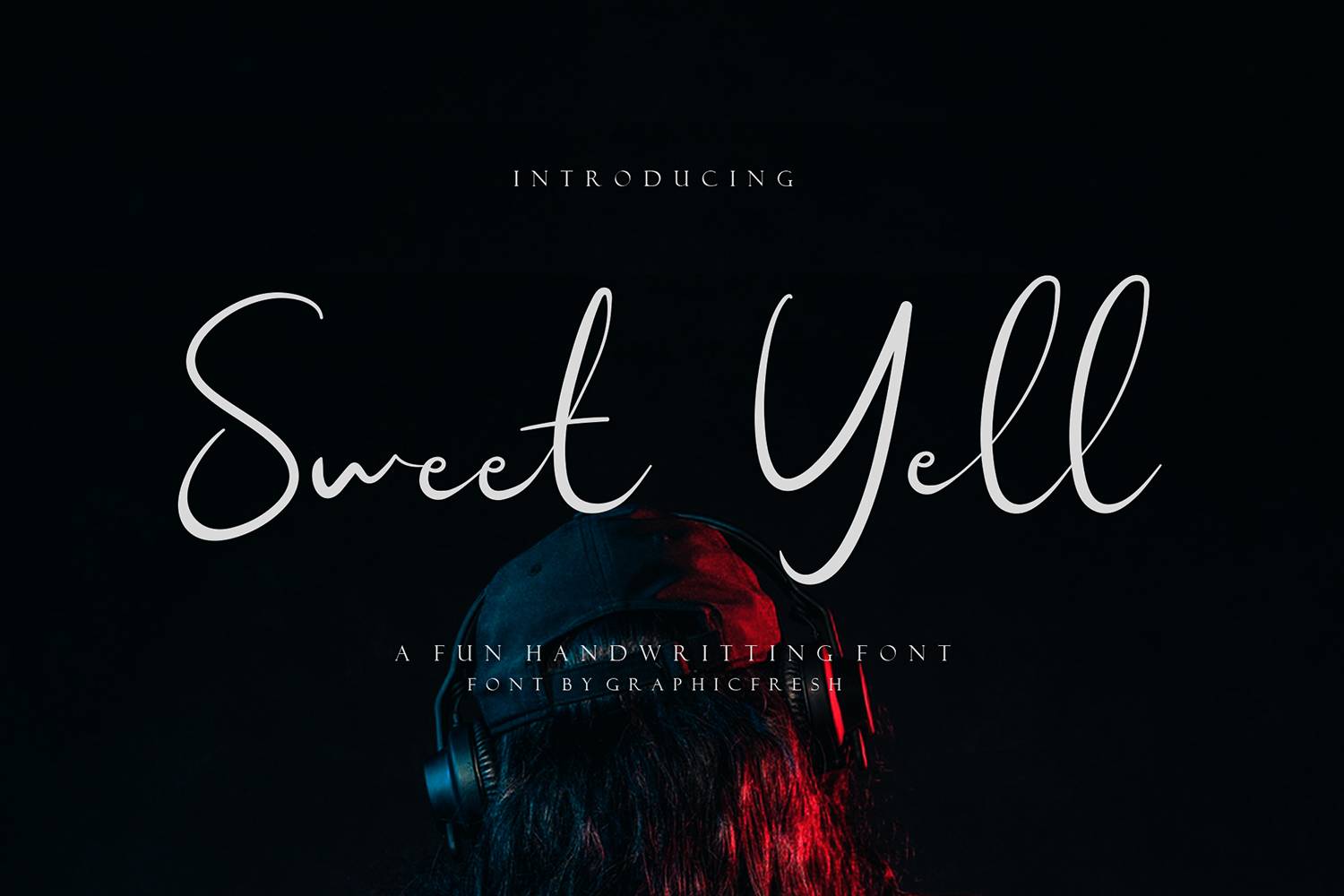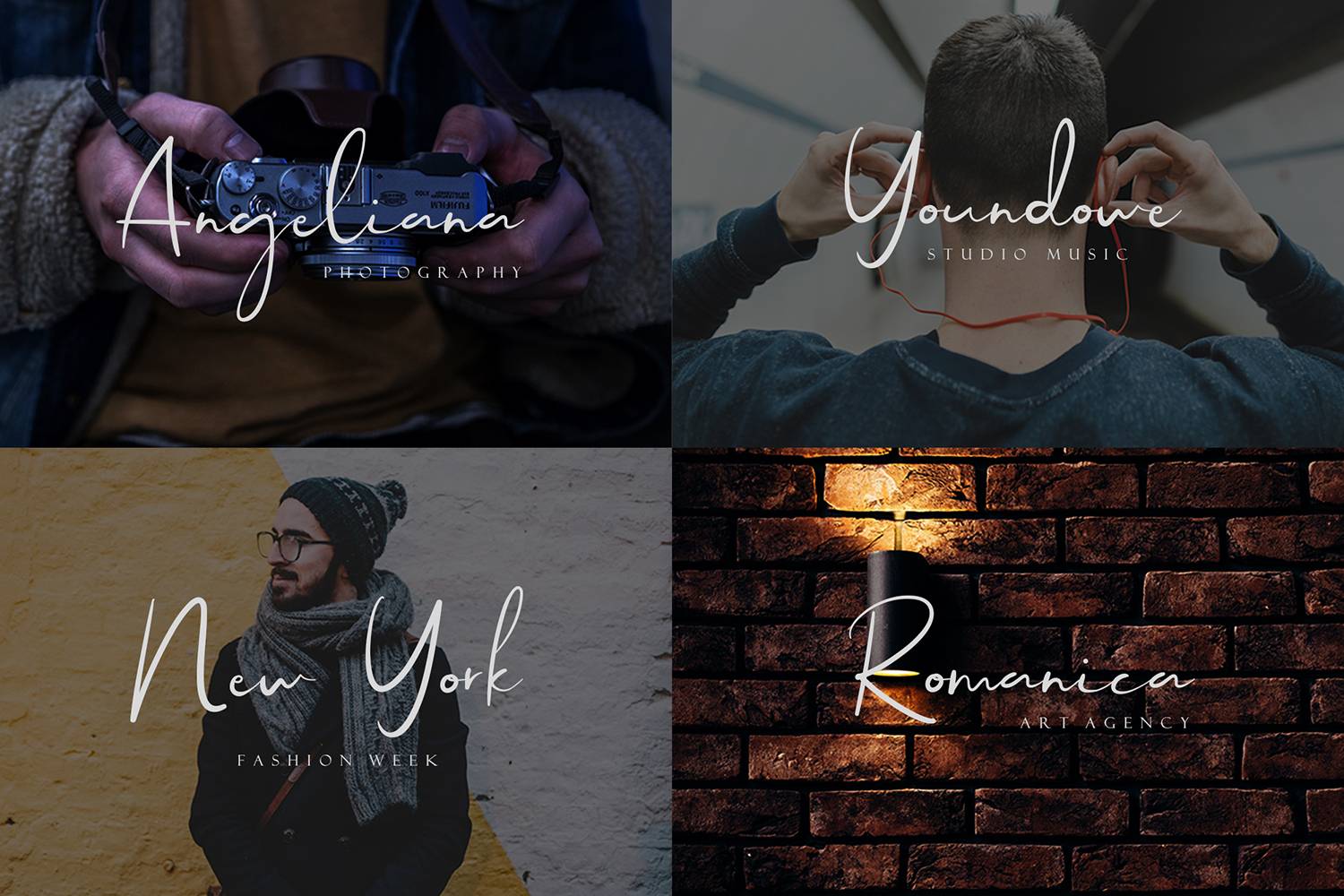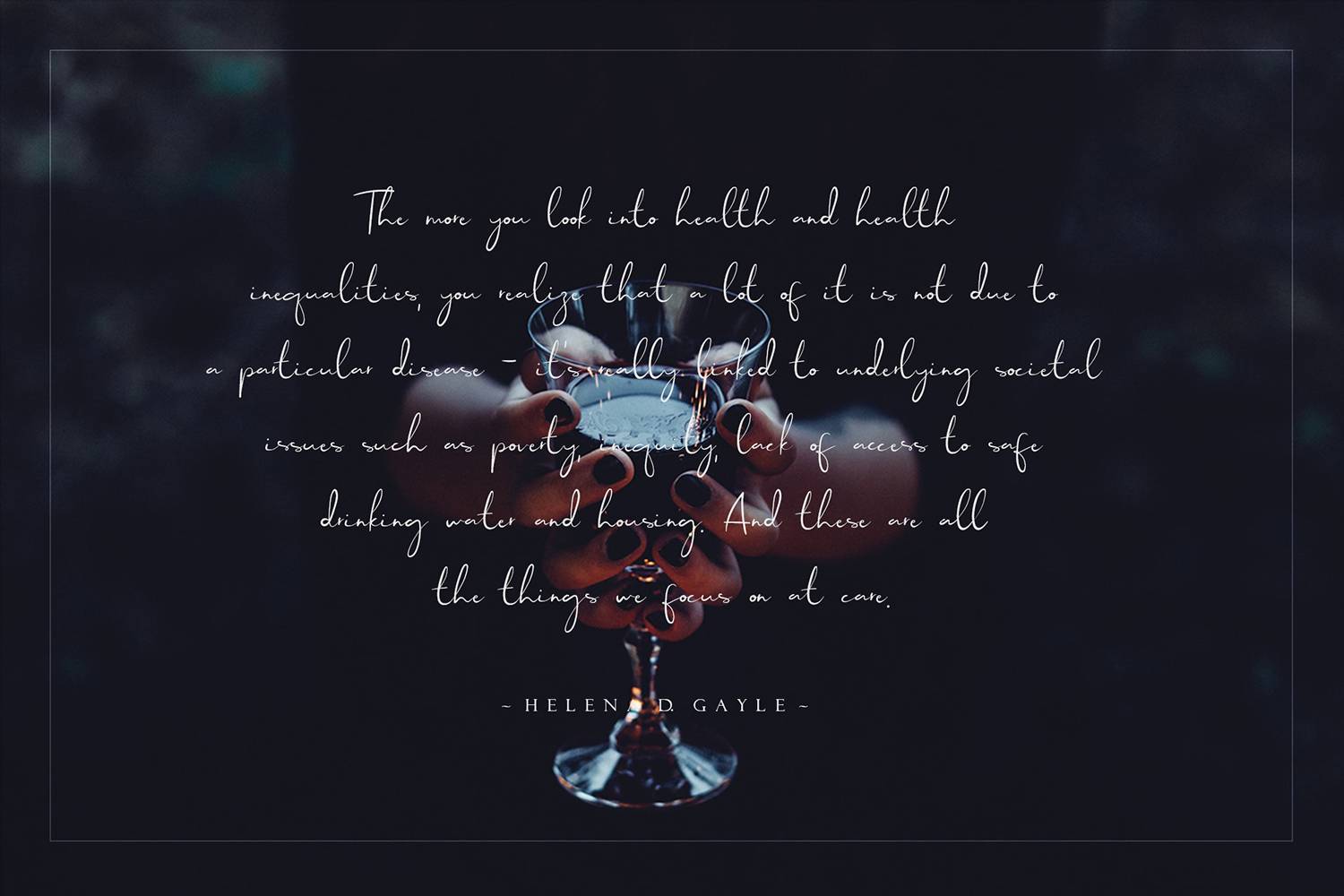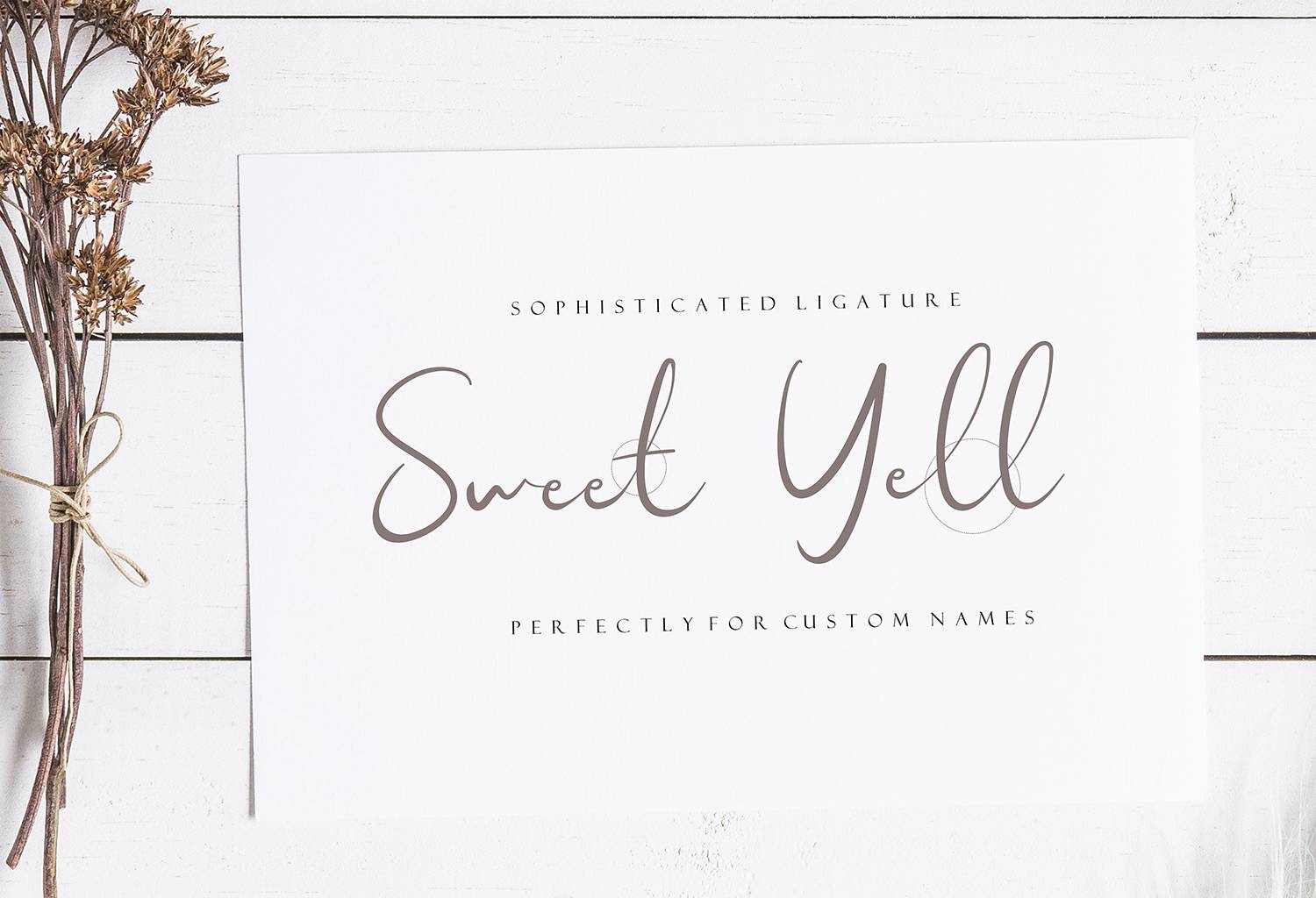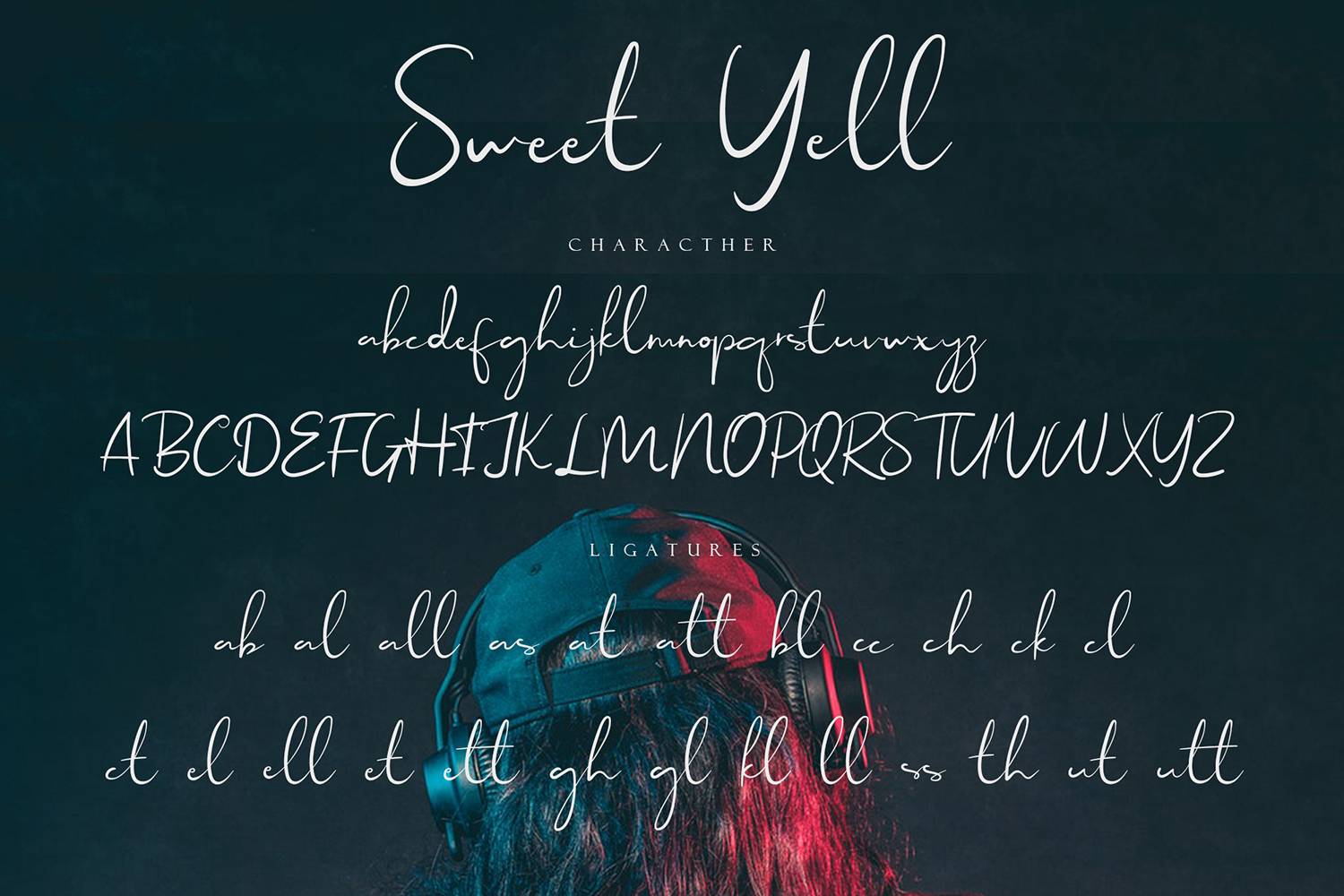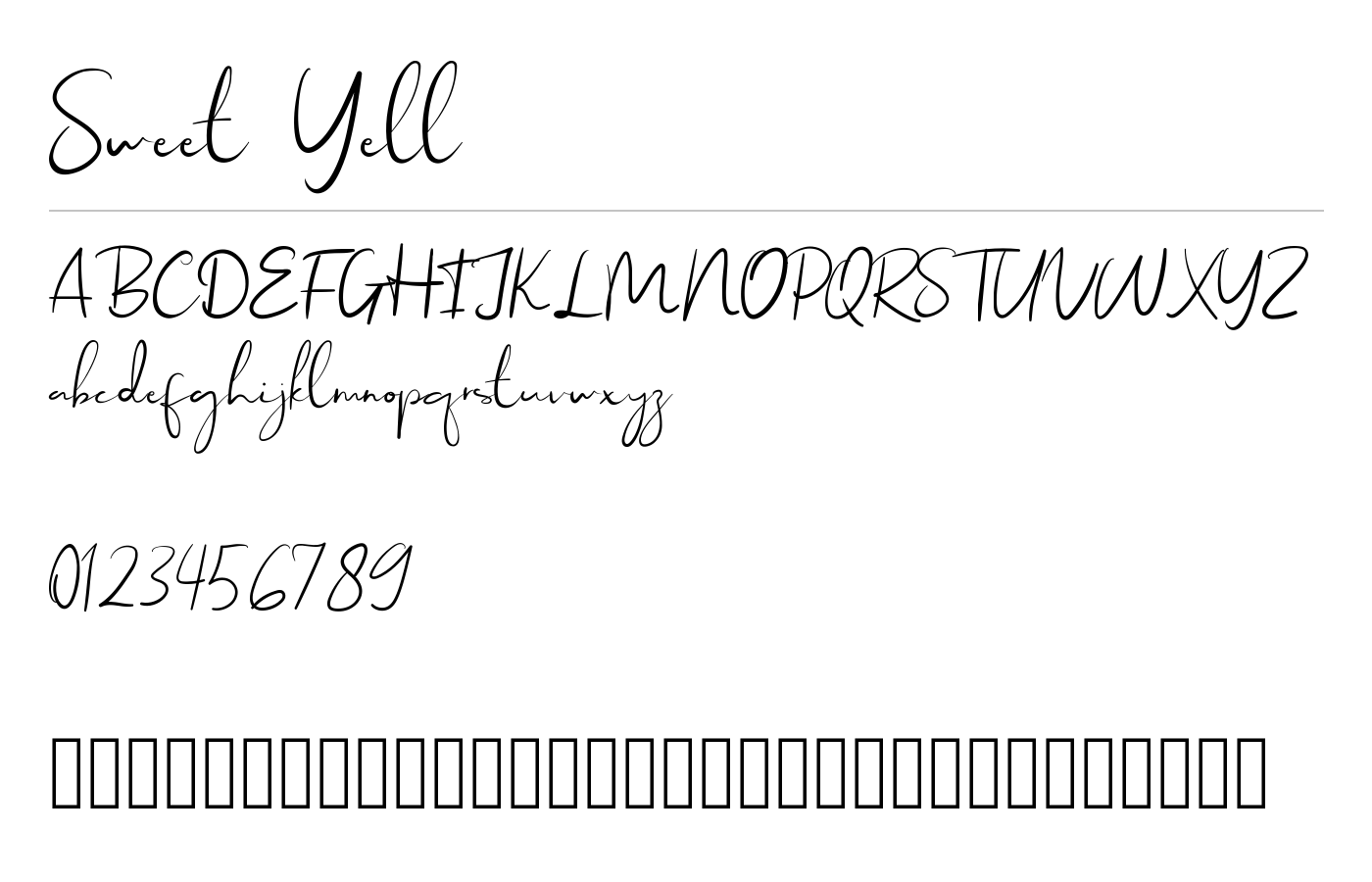
Sweet Yell is a delicate, handwritten script font with a light, airy feel that combines elegance with a playful charm. Its thin strokes and fluid letterforms create a graceful, natural appearance, making it ideal for personal invitations, branding, and feminine design projects. This font adds a touch of warmth and personality, perfect for conveying softness and creativity.
Sweet Yell Font
About Sweet Yell Font
| Font family | Sweet Yell Font |
| Designer | Muhammad Husni Haikal |